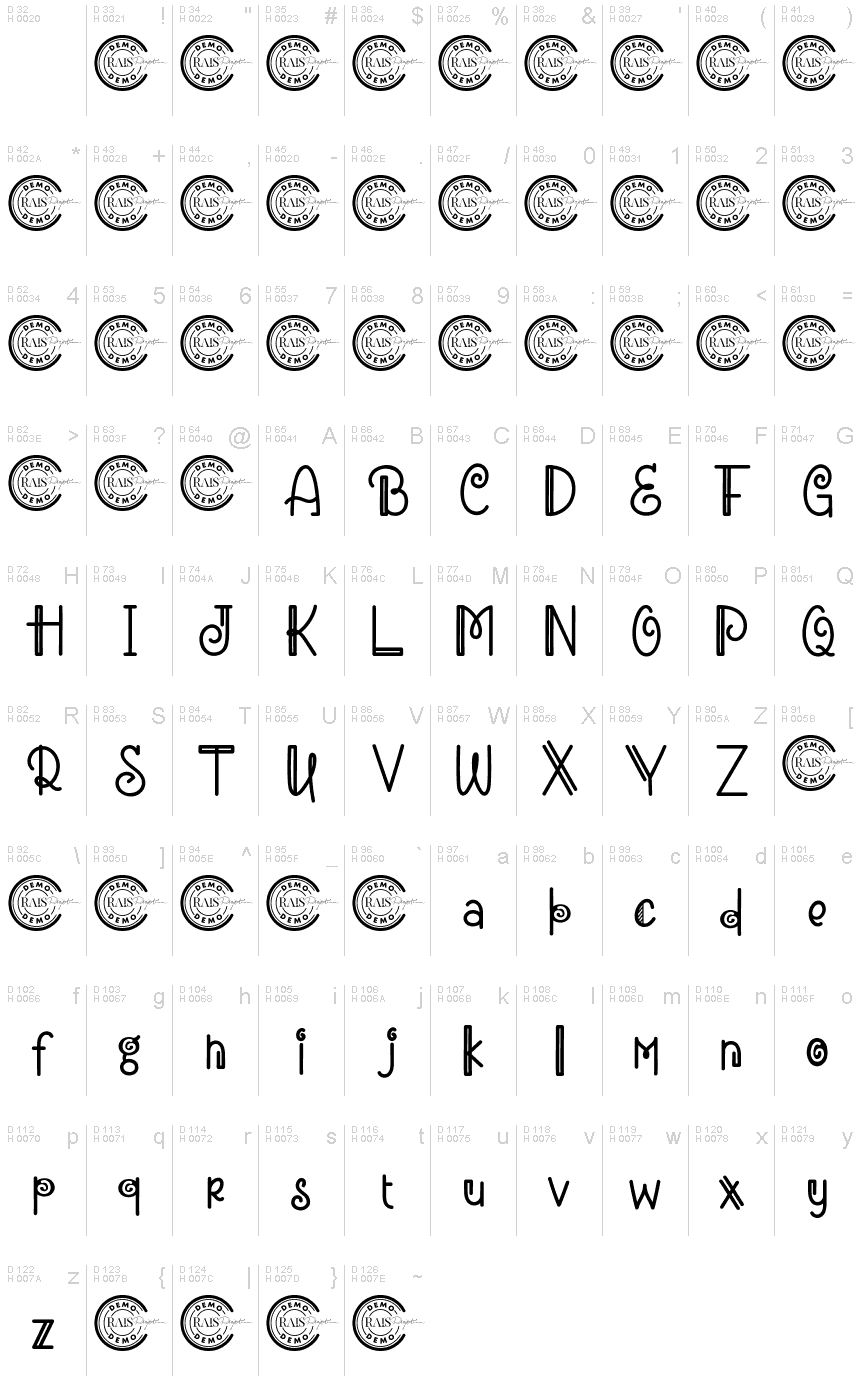
Lollipop Comic is a lively and playful display font designed by RaisProject. With its curly and whimsical style, it is perfect for projects that require a touch of fun and creativity, such as children's book covers, greeting cards, or social media graphics. The semi-light weight of the font adds to its playful nature while still maintaining readability. Whether you're designing for a business or personal project, Lollipop Comic is sure to add a pop of joy to your work. Try it out today and let your imagination run wild!
Lollipop Comic Demo